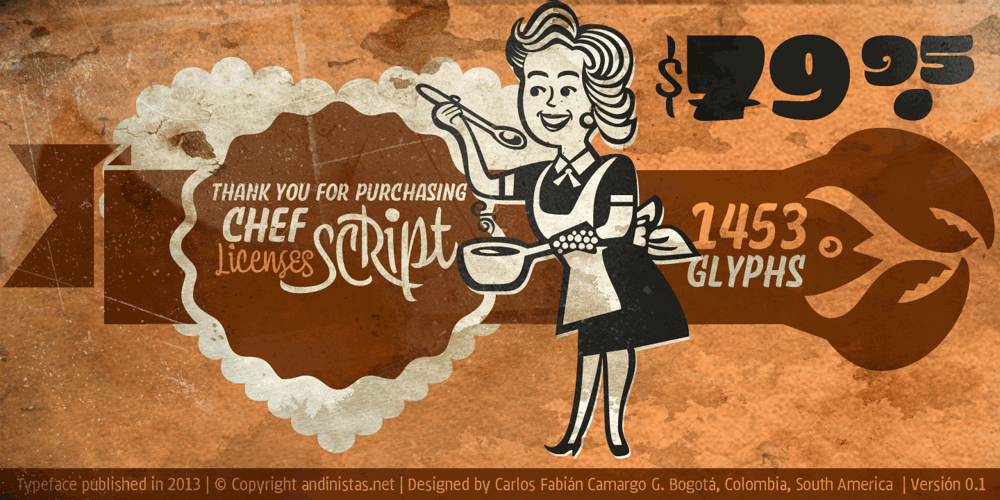
ChefScript Font Family was designed by Carlos Fabián Camargo Guerrero and published by Andinistas. ChefScript contains 8 styles and family package options. Chef Script is an experimental font designed by Carlos Fabian Camargo G. Its fantasy design contains 1463 glyphs to compose words, phrases and short messages on small and large sizes. The idea was born in a sketchbook that was perfected again by hand and achieving “non-neutral drawings” on tracing paper. With bezier digitization the empty and full parts of letters appeared with soft and eloquent curves as calligraphic result produces optimal readability. Chef Script combines warmth and good humor running in countless design applications such as labels and base plates, covers, posters, movie titles, seals and any printed design that needs an unusual typographic tool. In that sense, Chef Script is influenced by Speedball lettering manual (1957), Ross F. George. The illustrative nature of “ChefScript-complete” does not look anything like the traditional type design hierarchies. Therefore offers 7 hierarchical resource groups to design comfortable contexts flavored with illustration and typography: • ChefScript-Basic: Letters with horizontal and vertical thrifty proportions mimic an uninterrupted calligraphy brush made with flat tip. Thus its letters have ascenders and descenders strokes perpendicular to its base line and equal to the height of the lowercase. • ChefScript-Swashes: Letters expressive and unique flourishes to design highlighted words or phrases. • ChefScript-Caps: Uppercase with lowercase height give the impression of interrupted uppercase italics writing within what is written with uninterrupted lowercase letters producing strong contrast within a paragraph fragment. • ChefScript-Containers: Container drawings designed to exchange with infinite possibilities each order so that its inferior serve to store information written or drawn. • ChefScript-Dingbats: Pictograms that communicate: kitchen, chef, restaurant, food, etc. • ChefScript-Numbers: Bulky and useful numbers to highlight prices or figures containing points or dollar signs. • Chef Script-Words: Predesigned words with uninterrupted letters diagonally leveled highlighting various thoughts in writing.